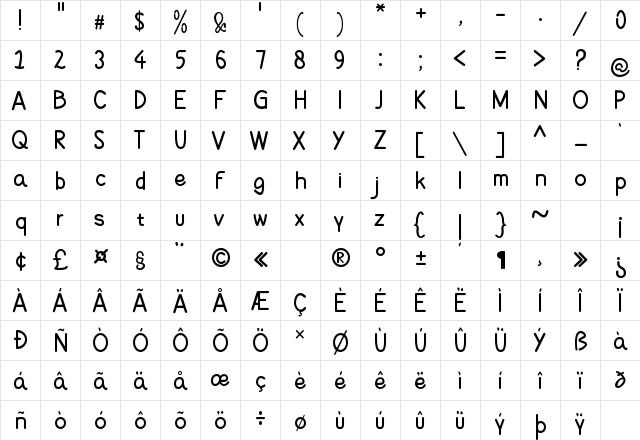
Kheqthree Regular
| Designer | Zkhai Creative |
Design Context for Kheqthree Typeface
Kheqthree takes a measured approach to typography — its balanced proportions and neutral character make it a reliable workhorse for both digital and print work.